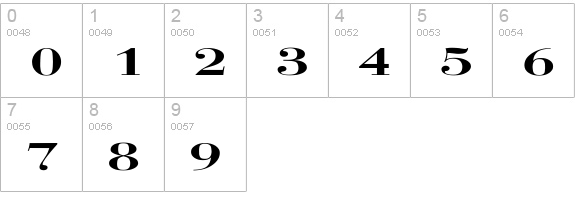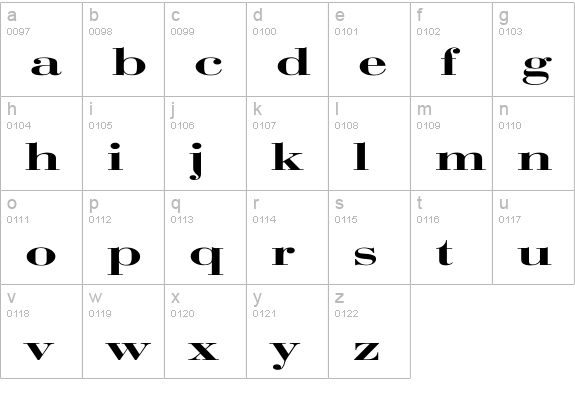
Bodoni Extended Font Details
Bodoni Extended is a distinctive, extended-width variant in the Bodoni typeface family \xE2\x80\x94 well suited to design and typography projects.
Bodoni Extended font is a sophisticated and elegant typeface that exudes timeless charm and modern appeal. With its elongated letterforms and precise geometric shapes, Bodoni Extended is perfect for creating striking headlines, editorial designs, and branding projects that demand attention. This versatile font is ideal for conveying a sense of luxury, sophistication, and refinement. Its clean lines and sharp serifs give it a classic yet contemporary look that is sure to elevate any design project. Whether you're designing a high-end fashion magazine, a luxury brand logo, or a sleek advertising campaign, Bodoni Extended is the perfect choice to make a bold statement. And the best part? Bodoni Extended is available for free download at FontsMarket.com. Now you can access this premium font without breaking the bank, making it easier than ever to enhance your designs with a touch of elegance and sophistication. Download Bodoni Extended today and take your typographic creations to the next level.